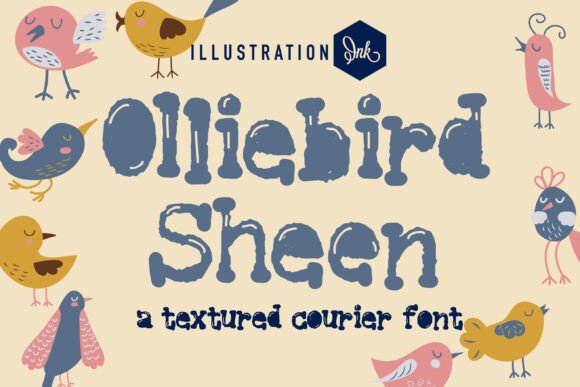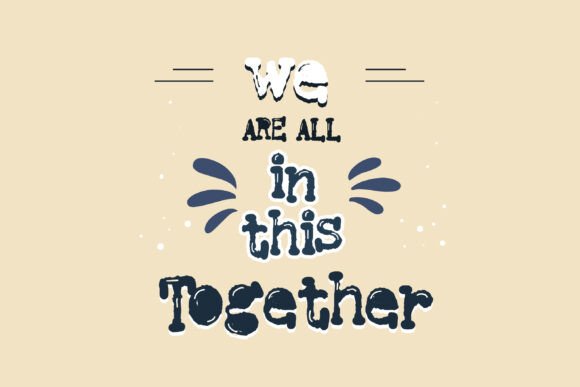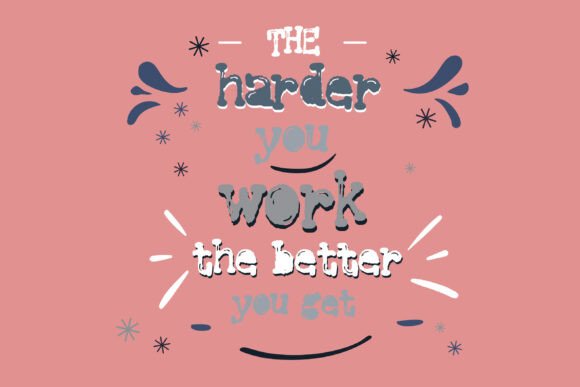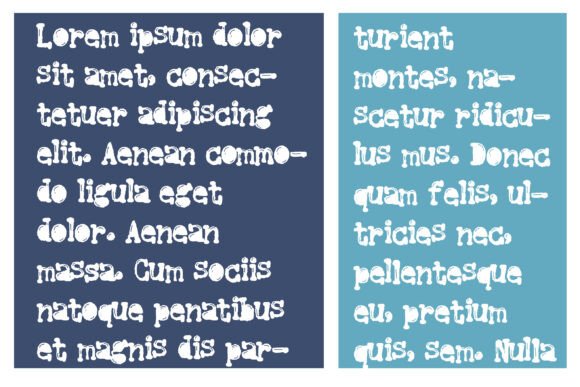
Olliebird Font
About the Olliebird Font
The Olliebird Font is here to transform your projects with its distinctive character and style. This hand-crafted font is a whimsical serif with lots of texture.
Olliebird’s whimsical, textured serifs make it ideal for headlines, short text blocks on posters or packaging, and branding elements needing a handcrafted feel. Its charm works well for projects targeting a younger demographic or those with a playful, slightly nostalgic brand identity. Avoid using it for large bodies of text or UI elements; its texture can become visually overwhelming and difficult to read at smaller sizes.
Pairing Olliebird effectively requires a contrasting but complementary typeface. A clean sans-serif like Open Sans or Lato provides a strong counterpoint, enhancing readability when used for supporting text. For a more sophisticated feel, consider pairing it with a delicate script font for added visual interest in invitations or branding materials.
The font’s overall personality is friendly and approachable, yet retains a touch of sophistication due to its handcrafted detail. This makes it a versatile choice for projects requiring a balance of charm and readability.
Olliebird Font Usage Examples
Olliebird Font Example